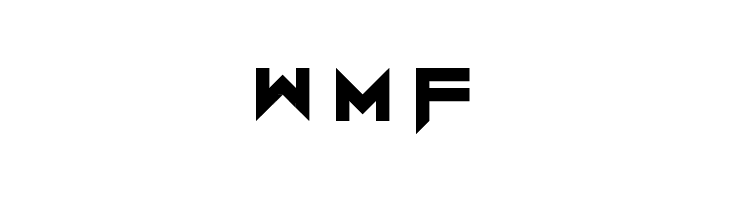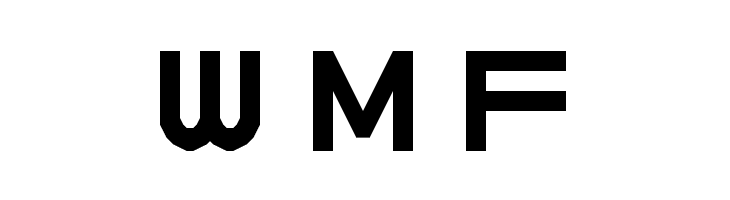
A bold, angular serif font with a modern twist.
A bold, angular font with a futuristic and geometric design.
Handwritten, ancient script with organic, flowing forms.
A bold, distressed font with a glitch effect, featuring jagged edges and irregular strokes.
A distressed, chaotic font with jagged edges and a grunge aesthetic.
A futuristic, glitch-inspired font with a digital and fragmented appearance.
A rugged, textured font with a distressed, industrial appearance.
A playful, bold font with rounded, bulbous characters and a whimsical style.
A bold, angular font with a futuristic and edgy design.
A bold, modern font with a distinctive vertical striped pattern.
A decorative font styled like smartphone screens with a tech-inspired, modern look.
A bold, angular font with a futuristic and aggressive design.
A bold, geometric font with angular shapes and a futuristic style.
A sleek, modern font with geometric and minimalist design.
A bold, angular font with a gothic-inspired, modern aesthetic.
A bold, angular font with a futuristic and geometric design.
A bold, angular font with a modern, futuristic style.
A bold, geometric font with sharp angles and a modern, edgy aesthetic.
A geometric, maze-like font with a modern, digital aesthetic.
A bold, pixelated font inspired by retro digital displays.
A futuristic, line-based display font with angular and energetic characters.
A bold, geometric font with angular lines and modern design elements.
A futuristic, angular font with sharp edges and a bold, modern style.
A bold, geometric font with a futuristic and edgy design.
A bold, geometric font with a modern, tech-inspired design.
A bold, angular font with sharp, splintered edges for a striking appearance.
A bold, gothic-inspired font with sharp, angular lines and dramatic strokes.
A bold, angular font with a futuristic, geometric design.
A bold, geometric font with angular shapes and a futuristic, industrial feel.
A bold, geometric font with a futuristic and modern design.